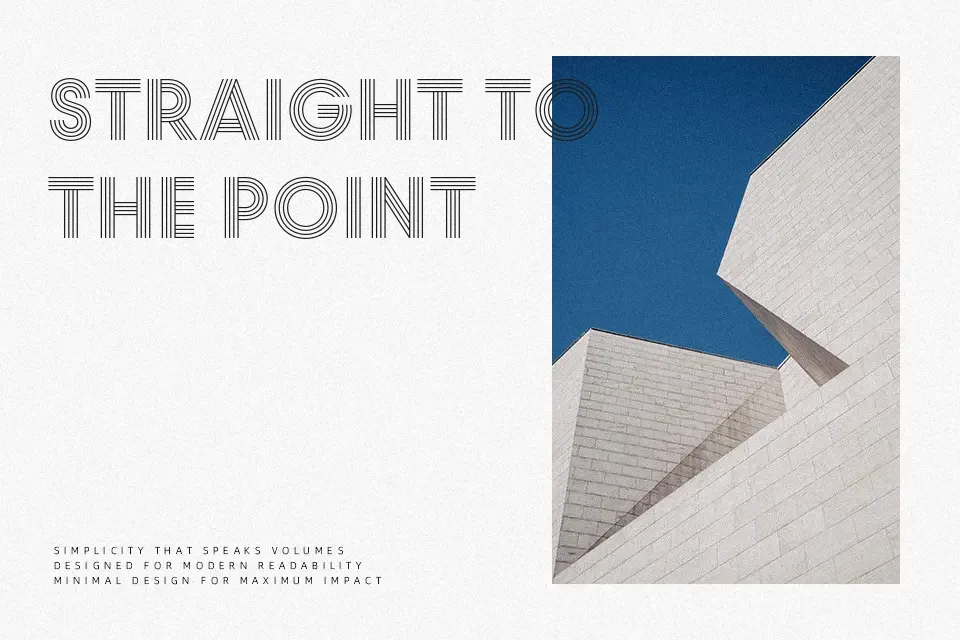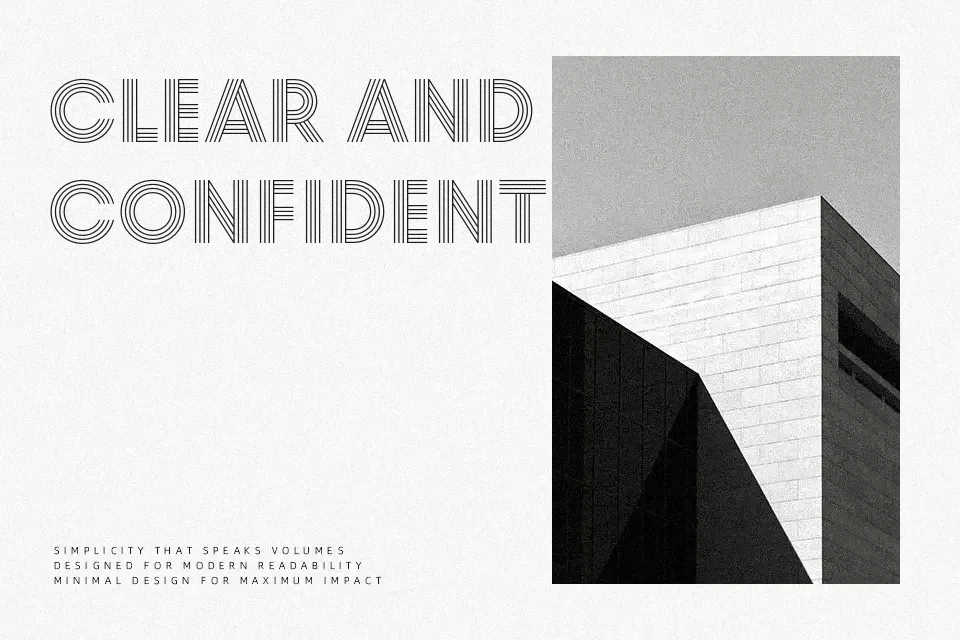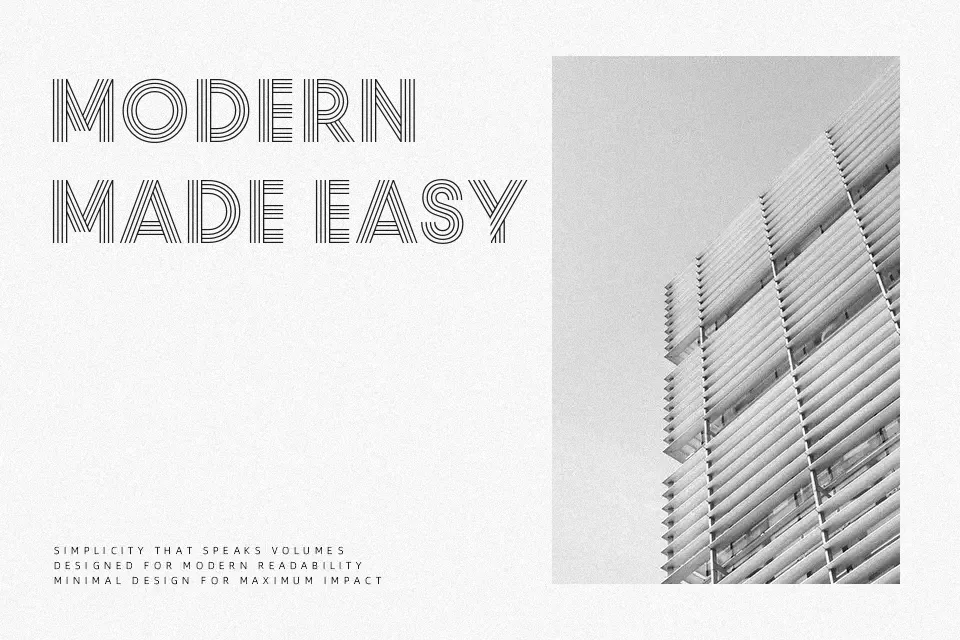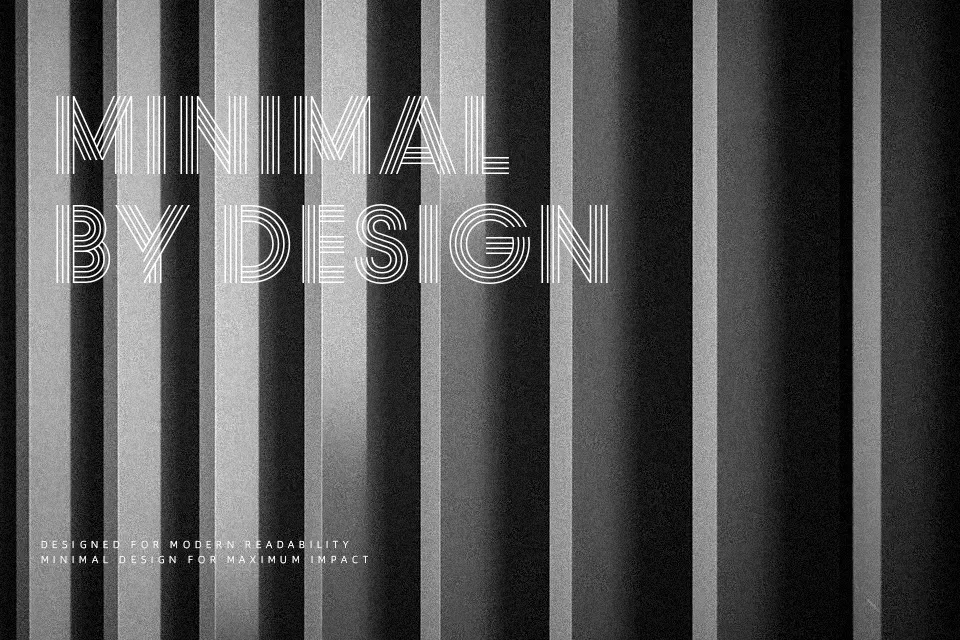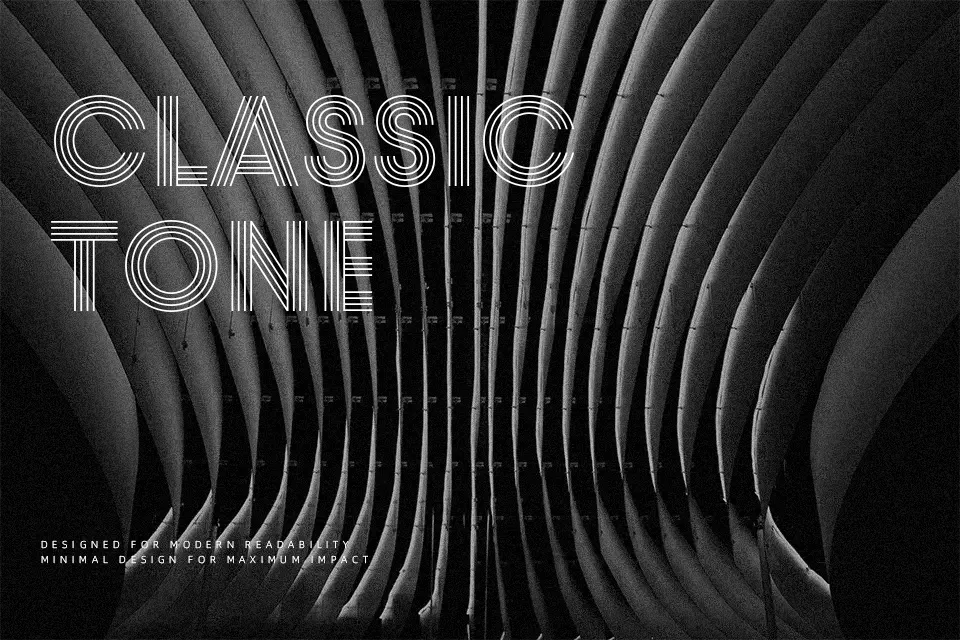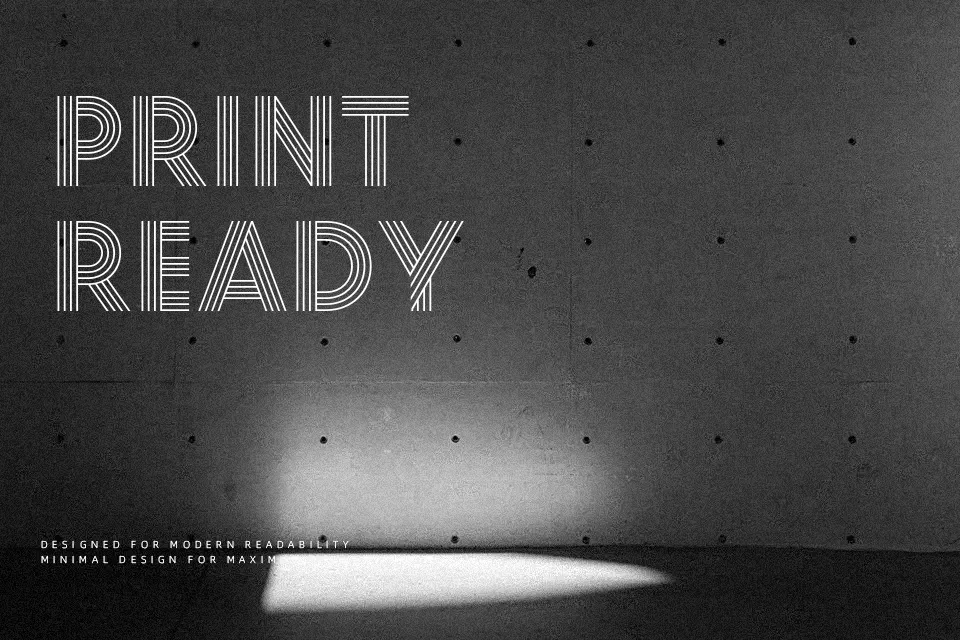
Prism Font
Prism Font utilizes a complex, multiline structure that builds geometric letterforms through parallel strokes. The open internal spacing between the lines creates a continuous visual rhythm, while the overall proportions remain balanced and wide. These prismatic strokes deliver a highly kinetic, optical appearance that excels in large-scale applications. The bold letterforms maintain strong visibility in large display text, providing an engaging aesthetic for vinyl record packaging and music festival headlines. However, the intricate parallel lines introduce limitations for smaller typography. Dense forms reduce comfort during extended reading, making the typeface unsuitable for long paragraphs or small captions where the repeating lines blur together.
music festival posters, retro-inspired branding, vinyl record packaging, apparel graphics
long paragraph text, small interface labels, dense editorial layouts, corporate reports